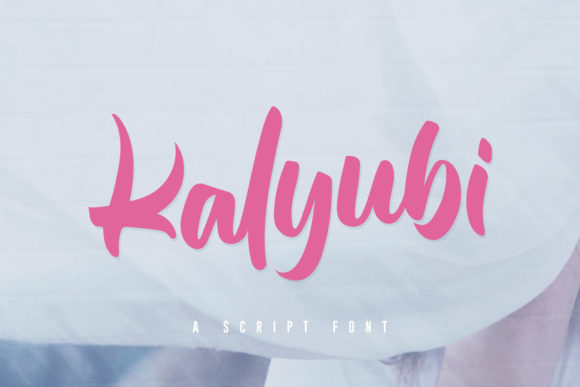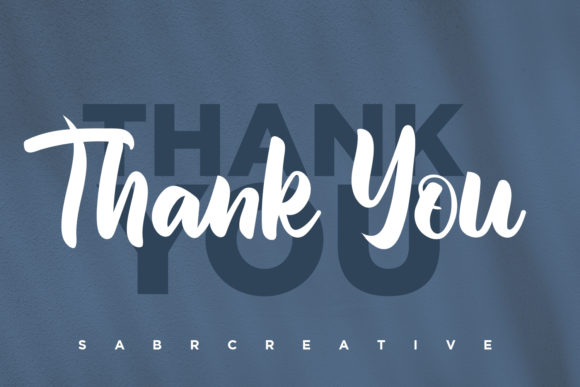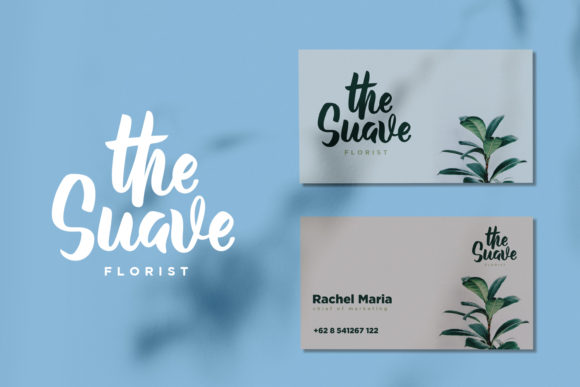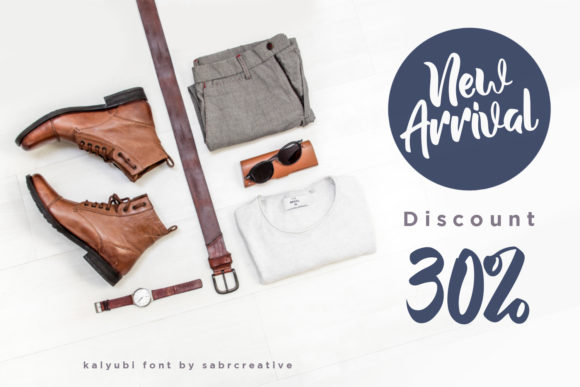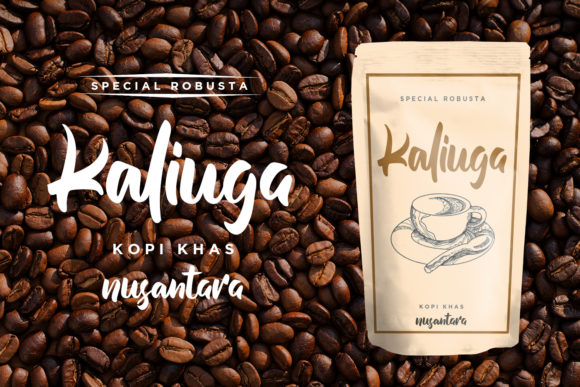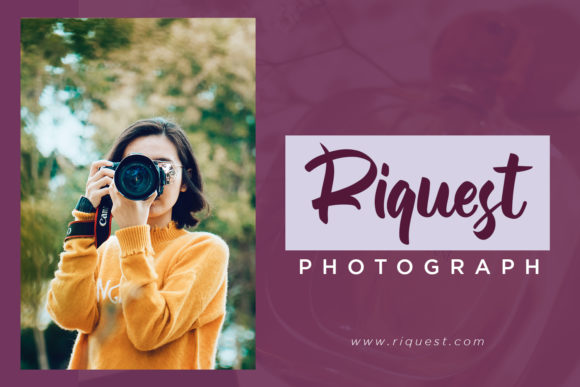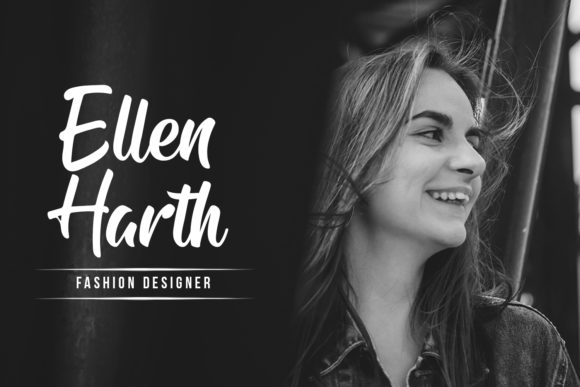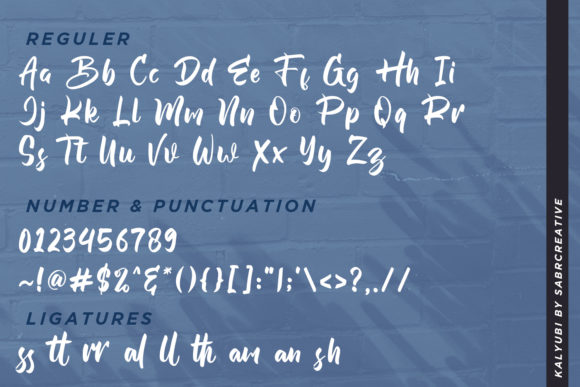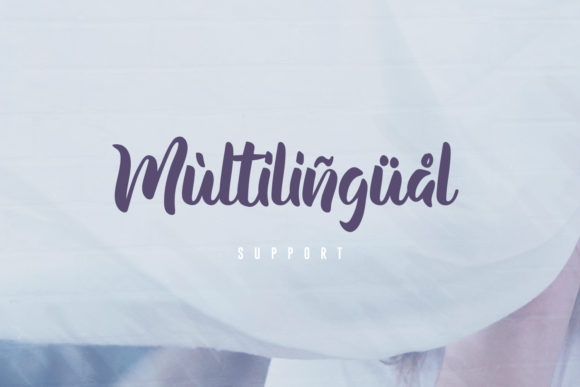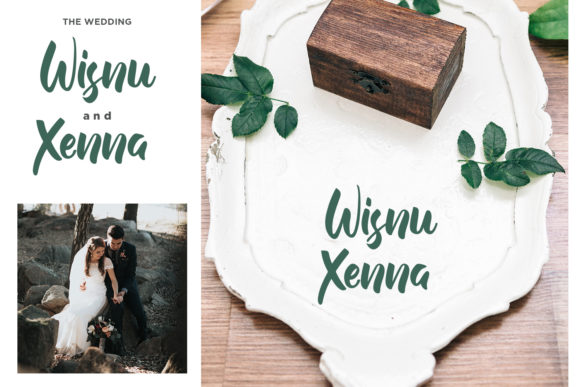
HomeScript FontsKalyubi Font Script Fonts Kalyubi Font FacebookXPinterestWhatsApp Kalyubi Font Poster 2 Kalyubi Font Poster 3 Kalyubi Font Poster 4 Kalyubi Font Poster 5 Kalyubi Font Poster 6 Kalyubi Font Poster 7 Kalyubi Font Poster 8 Kalyubi Font Poster 9 Kalyubi Font Poster 10 About Kalyubi Font Kalyubi is a lighthearted and warm script font full of charm. Get inspired by its unique approach to design! DOWNLOAD ON CREATIVE FABRICAThis font is sold and delivered by Creative Fabrica. Font Canyon may earn a commission if you buy through this link. People also explored Massterdam Fontera Font Deserted Canyon Font Enclave Font Line Arrows Font Belinda Heylove Font Hello Rillos Font Audentcial Font Shark Font Kolonjono Font Font 325 0 TagsKalyubi Font Previous articleAvenue FontNext articleAuspicious Font LEAVE A REPLY Cancel reply Comment: Please enter your comment! Name:* Please enter your name here Email:* You have entered an incorrect email address! Please enter your email address here Website: Save my name, email, and website in this browser for the next time I comment. Personal Use Free Multicolore Personal Use Free Read more about this font Delions Personal Use Free Read more about this font Adelaide Personal Use Free Read more about this font Xplor Personal Use Free Read more about this font BLOG Using Fonts in Digital Marketing: Tips to Strengthen Your Brand Identity In the realm of digital marketing, every visual element plays a crucial role in shaping a brand's identity, and fonts are no exception. The... Free vs Paid Fonts: Why Investing in Premium Fonts Is Worth It Where to Buy American Fonts Online in 2024 Best Fonts for T-Shirt Design – Top 2025 Picks